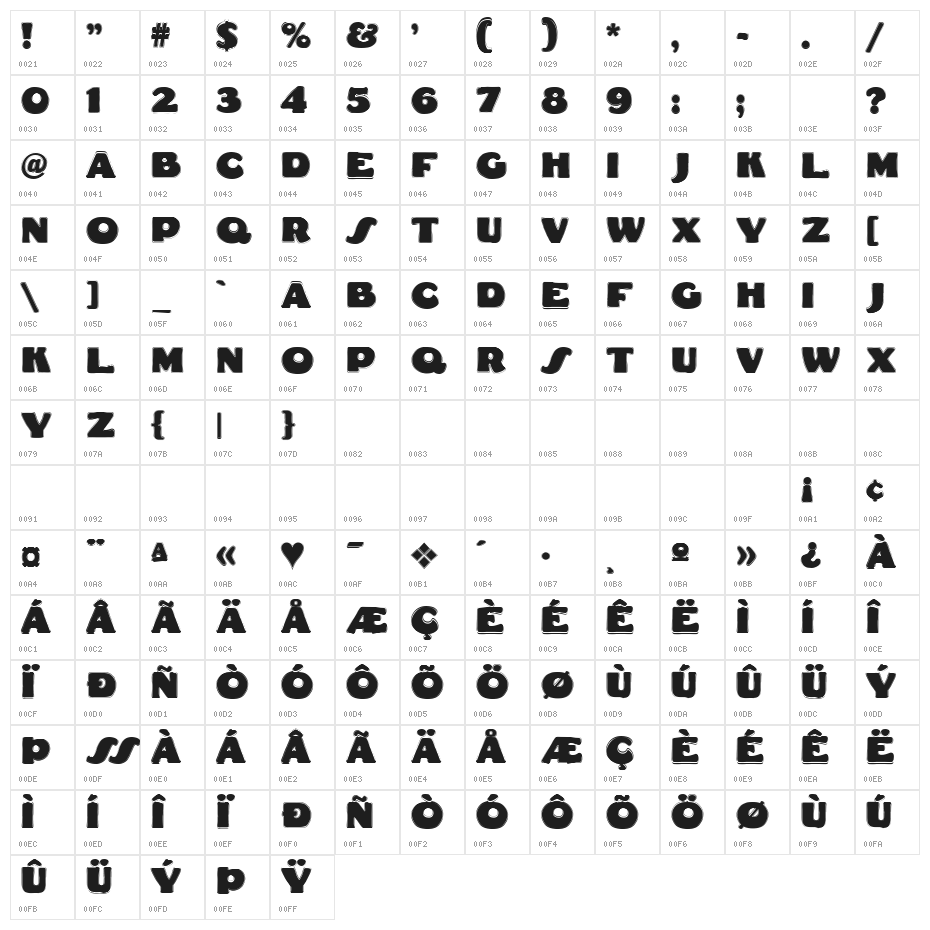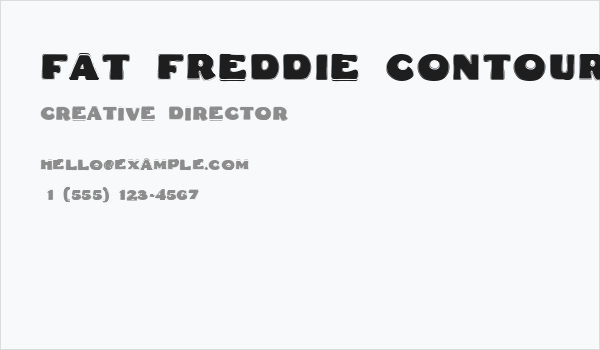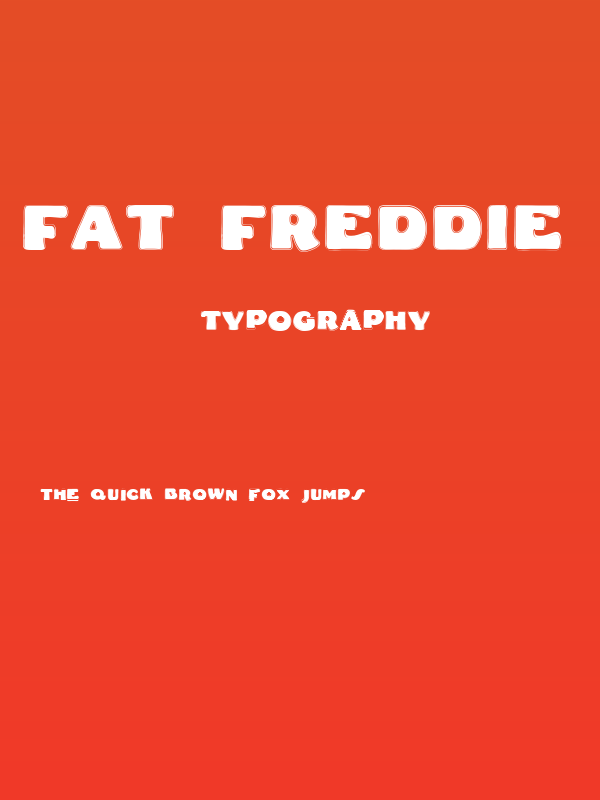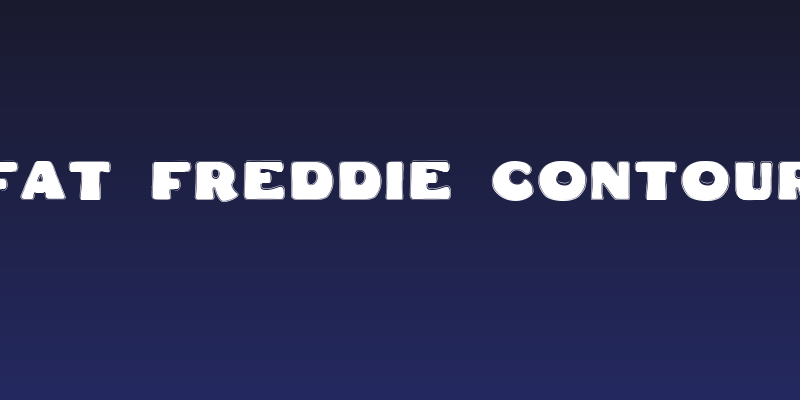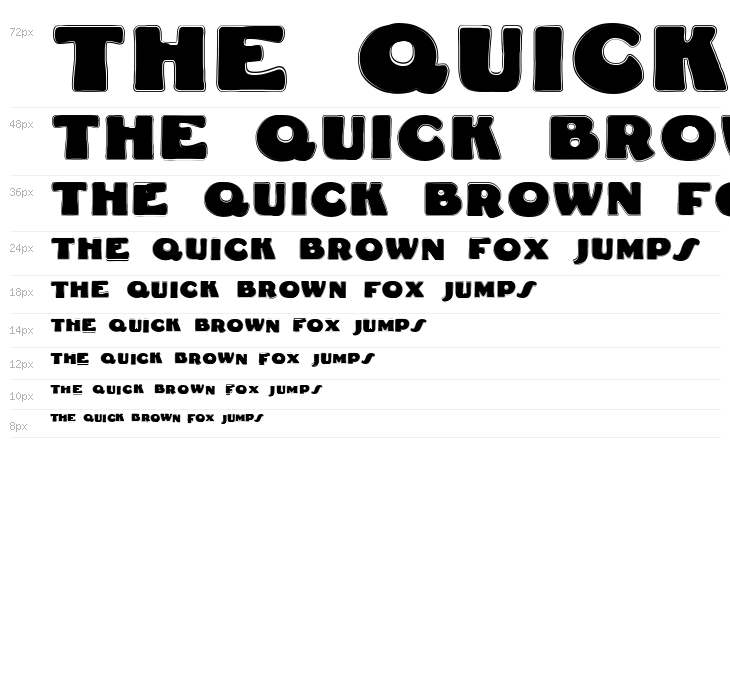
Fat Freddie Contour Font
Fat Freddie Contour Description
This font features bold, rounded characters with a distinct contour effect, giving it a playful and eye-catching appearance. The letters are thick and robust, with a consistent stroke width that enhances readability while maintaining a unique style. The contour adds depth, making each character stand out prominently. The numerals and special characters follow the same design principles, ensuring a cohesive look across all glyphs. This font is ideal for projects that require a fun and engaging visual impact.
| Overall Style | Playful, Decorative |
| Proposed Projects | Ideal for children's book covers, playful branding, posters, and any design needing a bold, fun aesthetic. |